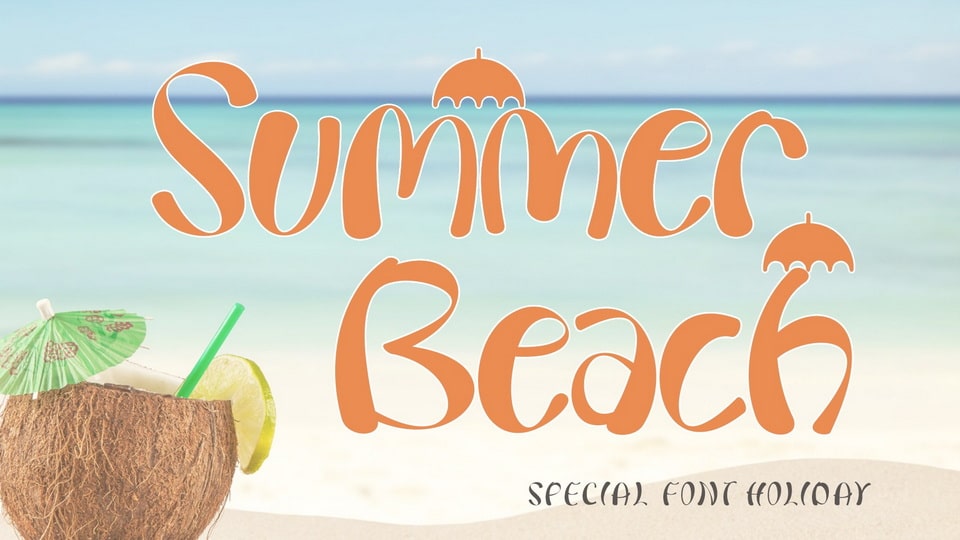
Download Summer Beach font, a unique display typeface with an umbrella decorated in the letters. Summer Beach font is suitable for summer, holiday, traveling, beach nuances, Christmas, winter, autumn, comic, Halloween, easter, movie titles, cartoons, and others.